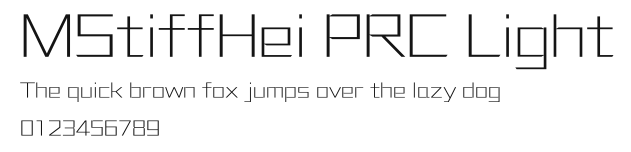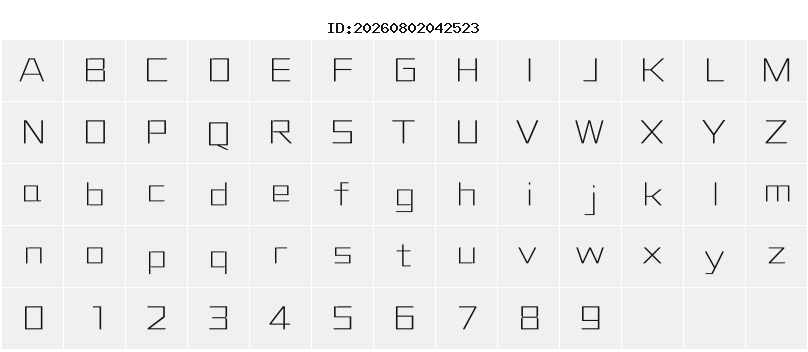
MStiffHei PRC Light Preview
• Font Name: MStiffHei PRC Light
• Font ID: MStiffHei PRC Light
• Full Font Name: MStiffHei PRC Light
• PostScript Name: MStiffHeiPRC-Light
• Character Count: 29020
• Manufacturer: Monotype Imaging Inc.
About MStiffHei PRC Light.ttf
MStiffHei PRC Light.ttf is a modern, elegant sans-serif font designed for ultimate readability and visual harmony. Perfect for branding, headlines, web design, and print materials.